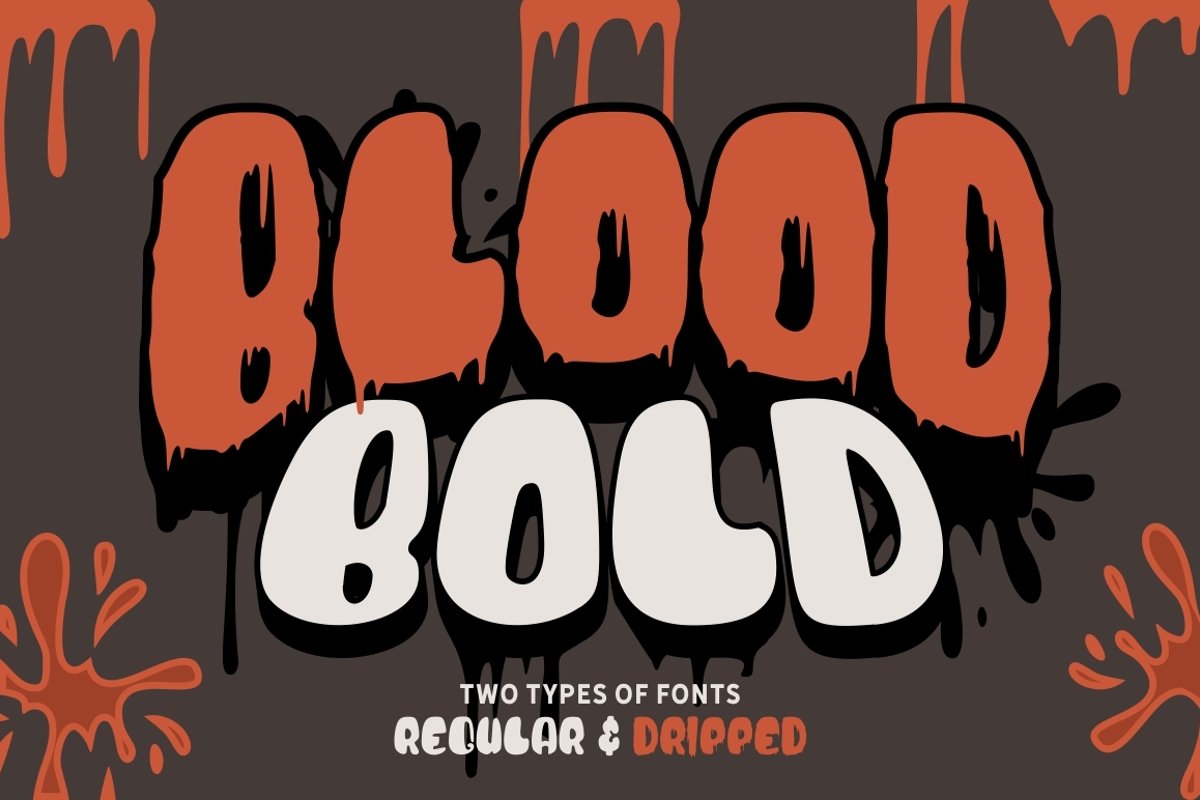
Blood Bold - Fun Halloween Two Fonts
Introducing Blood Bold - Fun Halloween Two Fonts
Blood Bold is a bold display font, bloody perfect for all things Halloween!
We provide two typefaces in this item.
- Uppercase & Lowercase letters
- Numbering and Punctuations